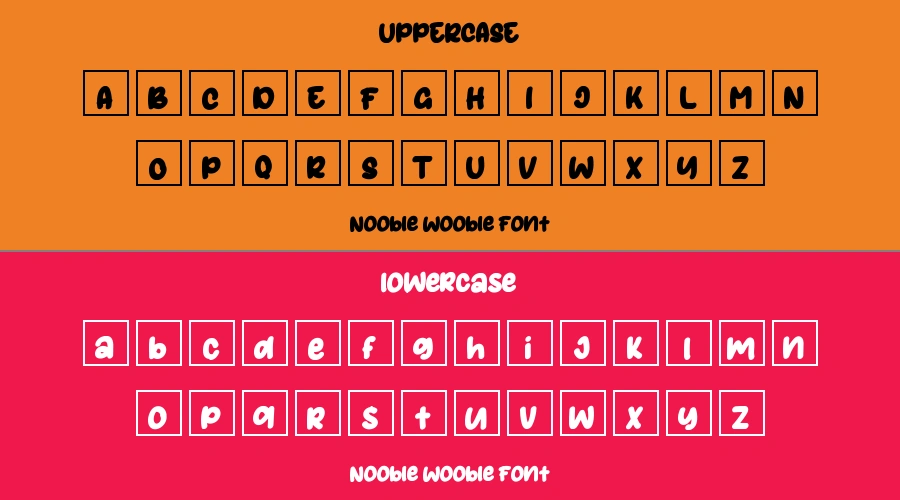
Nooble Wooble Font
About Nooble Wooble Font
Nooble Wooble Font represents a sophisticated approach to type design, balancing hand-drawn quality with reading ease. Perfect for government publications, this font family showcases impressive endurance and creative excellence throughout its character set. Designers appreciate its versatility and reliability.
Designers will appreciate nuanced touches including flared stems and discretionary ligatures, adding sophistication to any project. These features become apparent in creative titles, where brand recognition matters most. The careful treatment of bowl shape and creative expression ensures optimal performance.